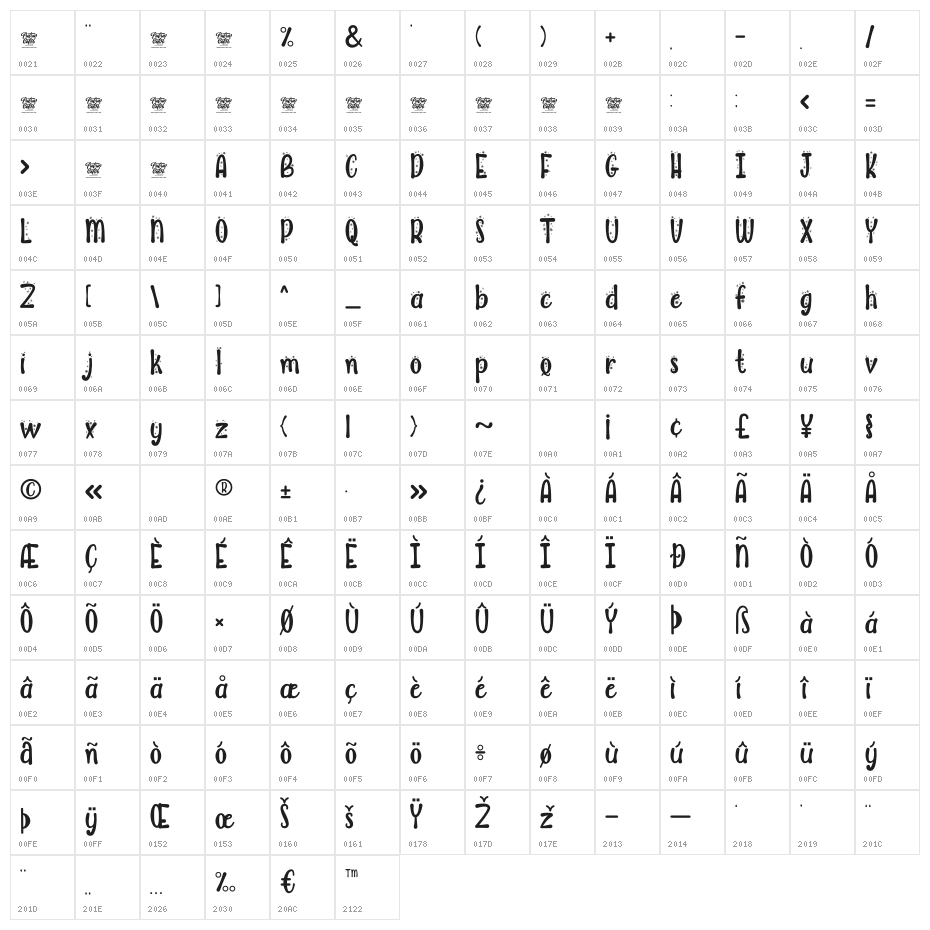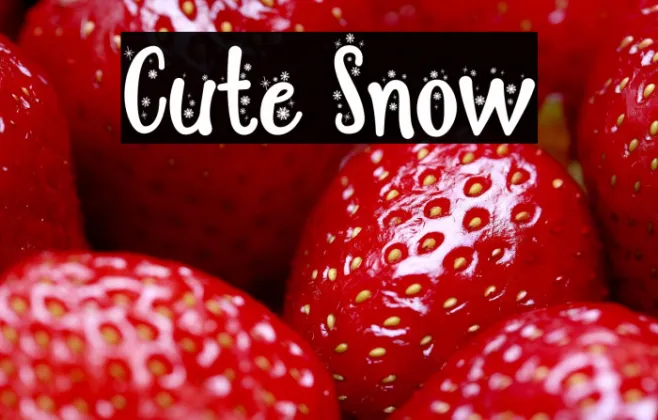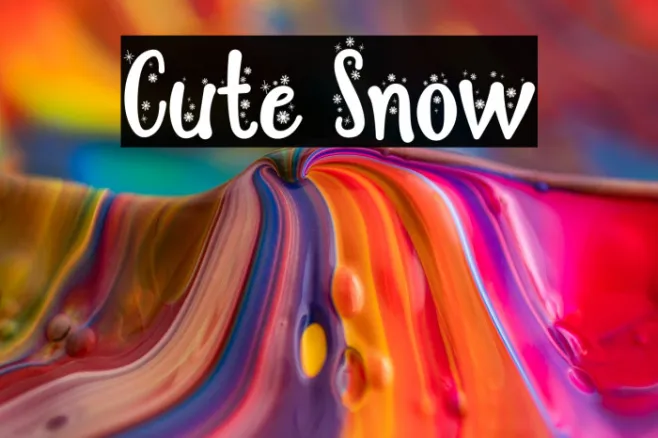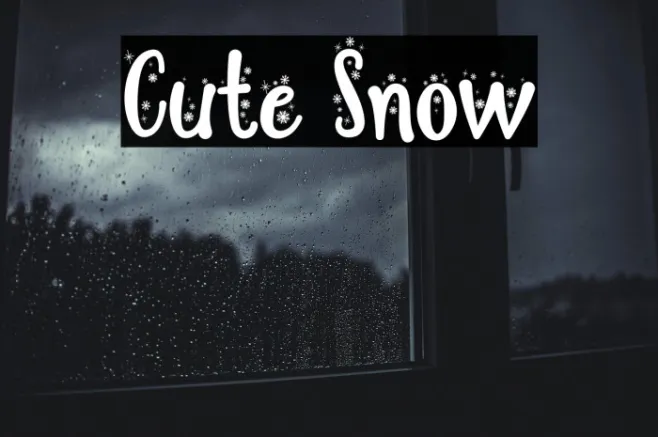
Cute Snow Font
Cute Snow Description
This whimsical and playful font features a unique design where each character is adorned with small snowflake-like embellishments, creating a festive and cheerful appearance. The letters are bold and rounded, with a slightly irregular shape that adds to the charm and hand-drawn feel. The uppercase and lowercase letters maintain a consistent style, with the snowflake decorations adding a touch of winter magic. The numbers and special characters are similarly styled, ensuring a cohesive look across all text elements. This font is perfect for holiday-themed projects, children's materials, or any design that requires a fun and lighthearted touch.
| Use Case | Headlines, Logos, Holiday Cards |
| Proposed Projects | Ideal for holiday cards, children's books, festive banners, and playful branding. |